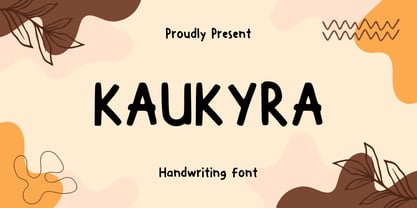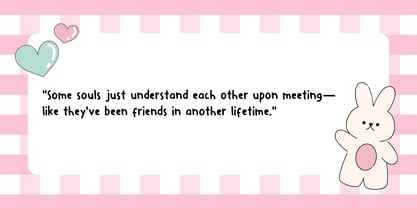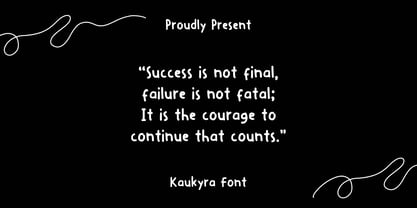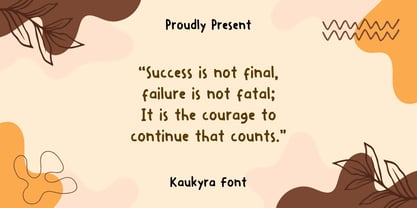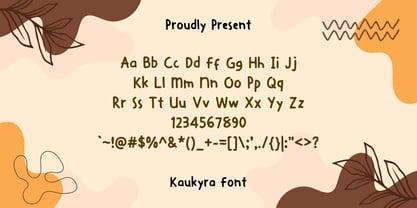
Kaukyra
by Sidkia Fonts
The Kaukyra Font Family was designed by and published by Sidkia Fonts. Kaukyra contains 1 styles. More about this family
The Kaukyra font has a playful handwritten style that feels warm and friendly. Its rounded strokes and slightly uneven shapes give it a natural, casual, and approachable vibe, perfect for quotes, posters, branding, or creative projects that want to look fun yet personal. It’s easy to read while still carrying a unique charm, making it great for both digital and print designs where you want to add a touch of personality and softness.